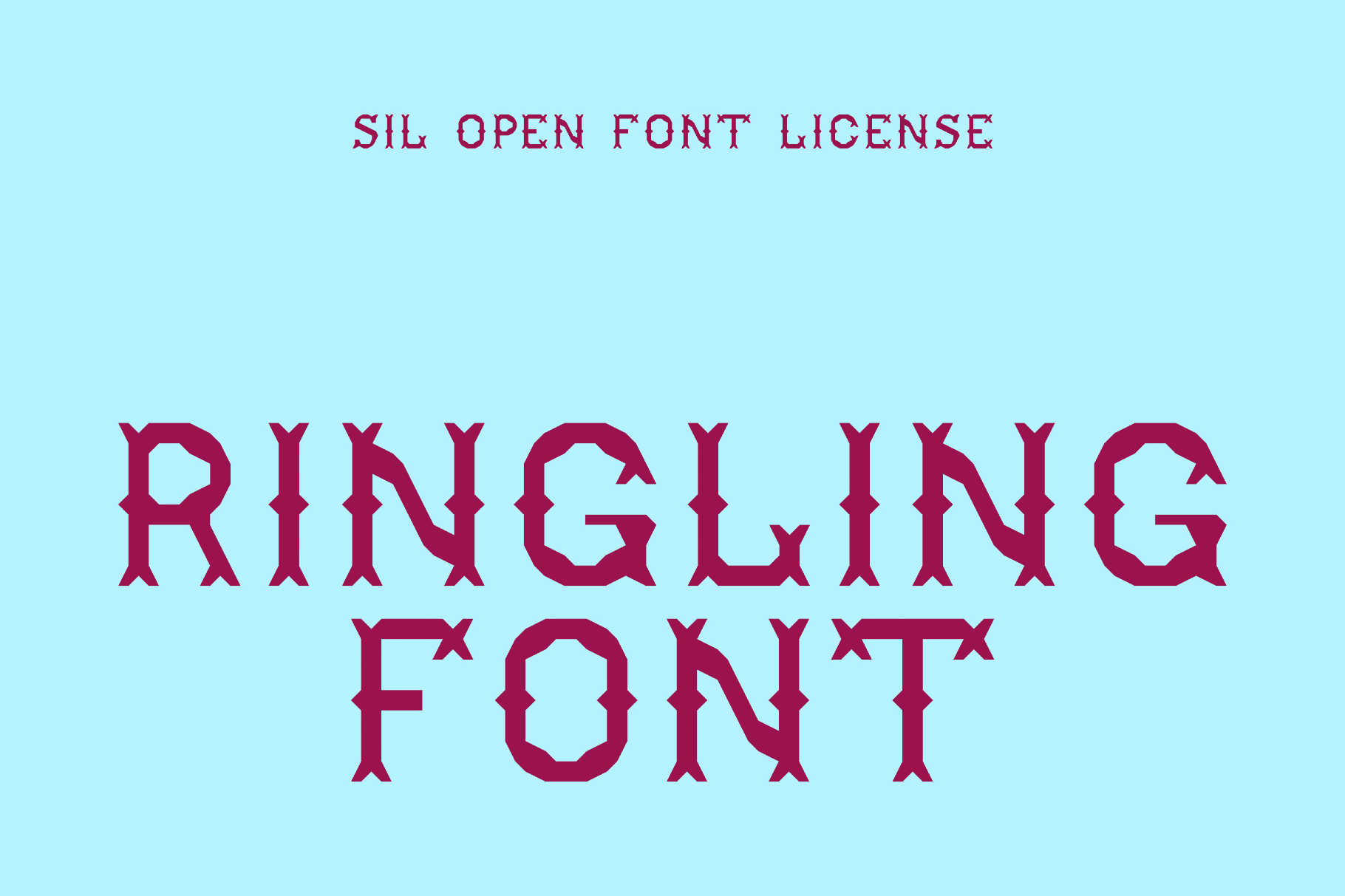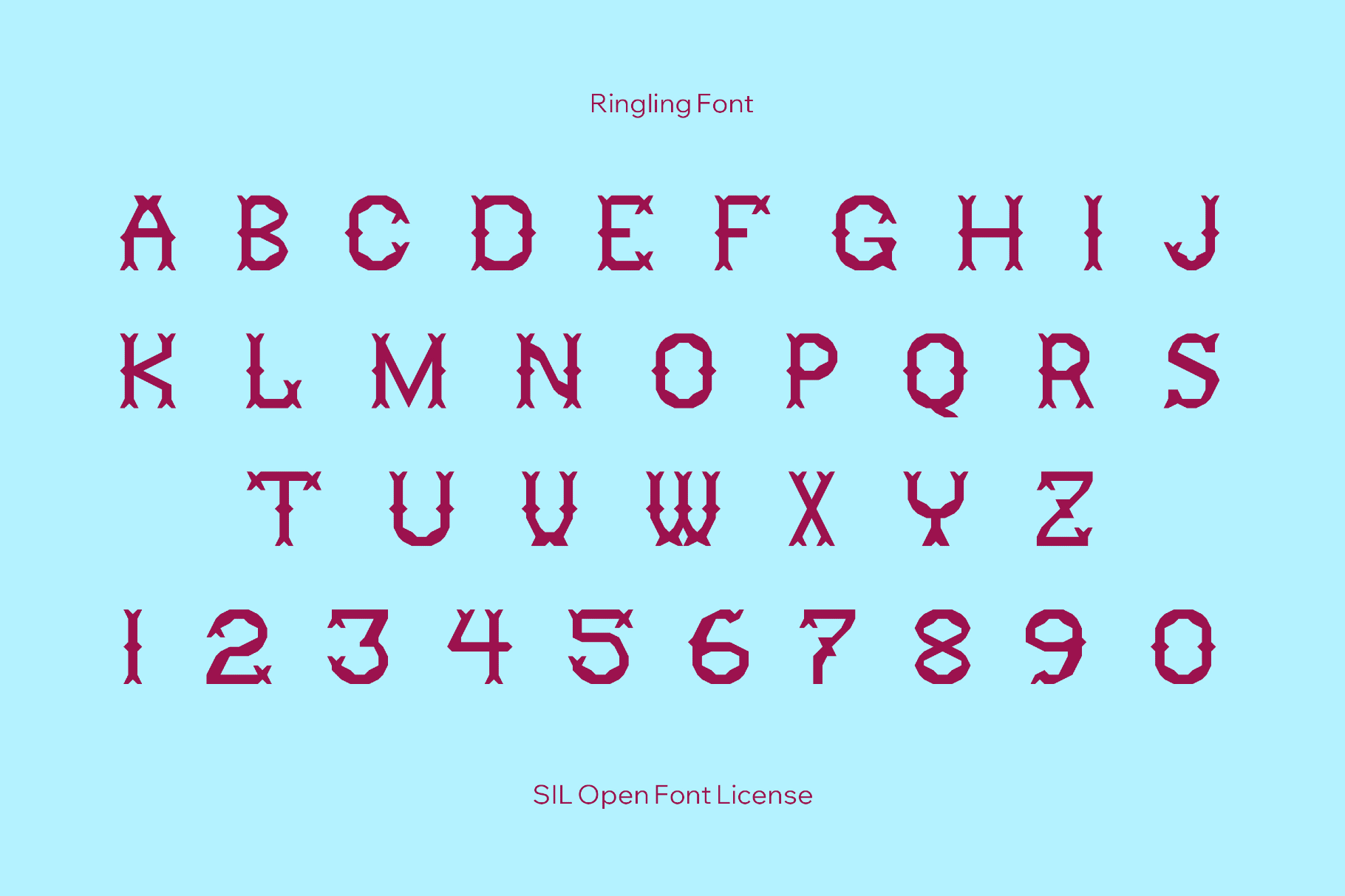
Ringling Font
Ringling
Ringling is a vivid circus display rooted in vintage big-top posters and turn-of-the-century show typography, marked by chunky slab serifs and minor decorative cuts. It’s ideal for circus or carnival posters, headlines, logo wordmarks with a fairground twist, packaging, event branding, album art, vintage product labels, social media graphics, and merchandise.
- Only uppercase letters.
- Expanded set of international characters for basic multilingual Latin layouts.